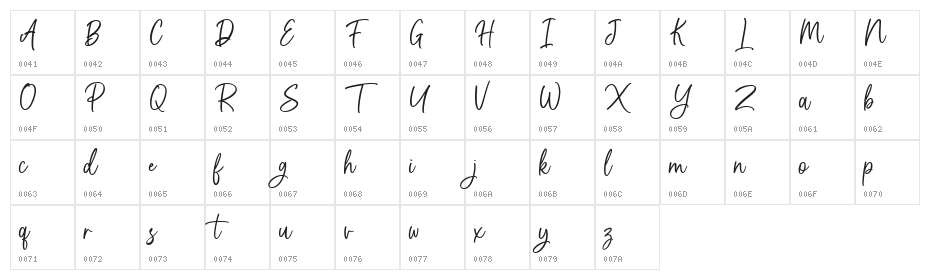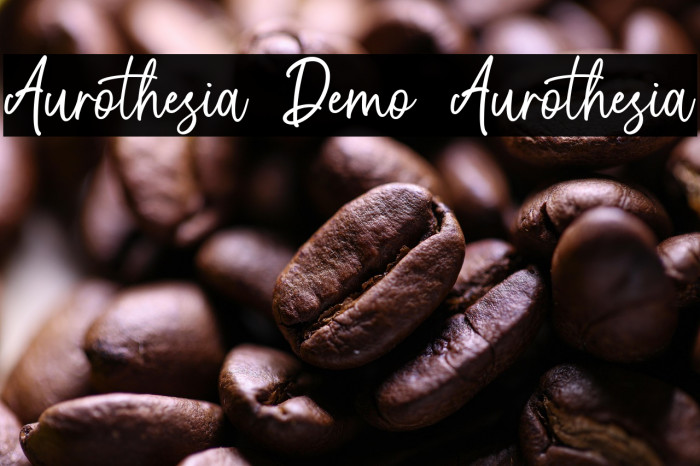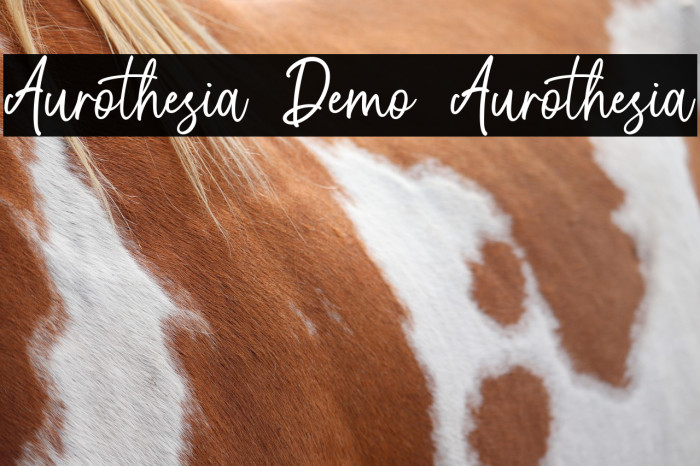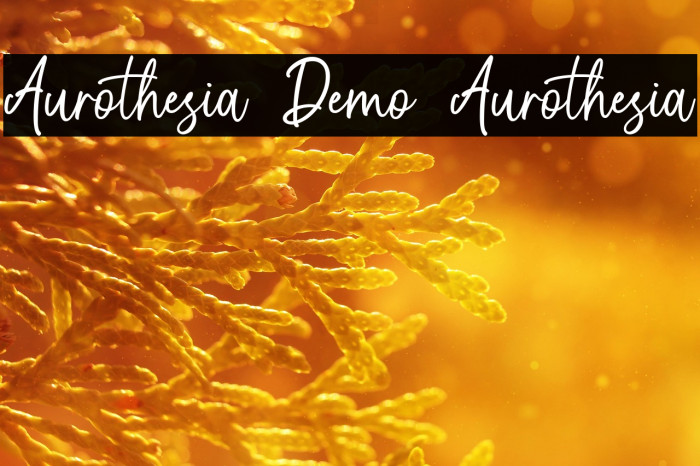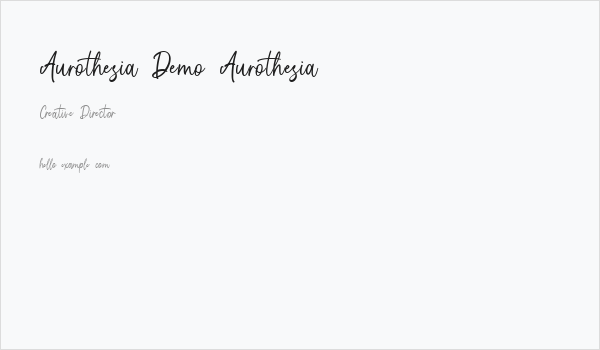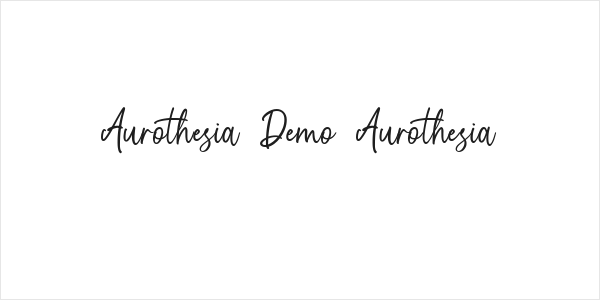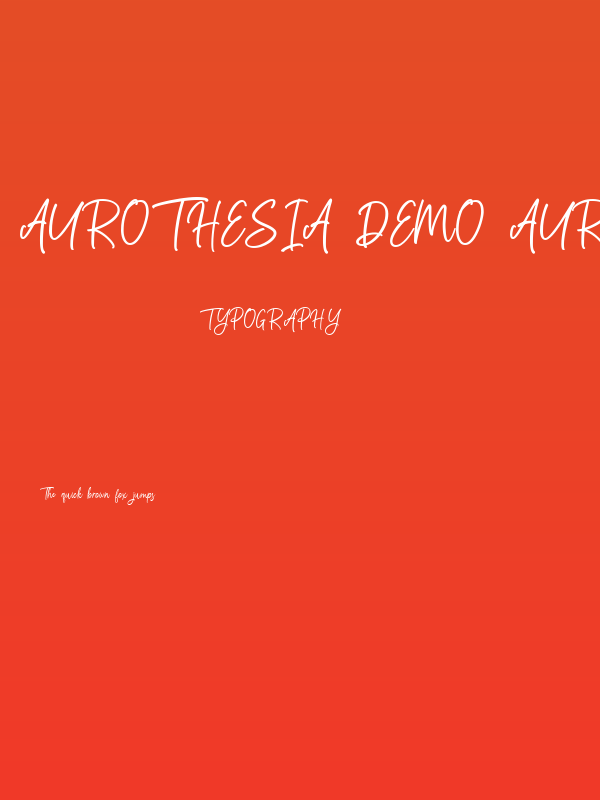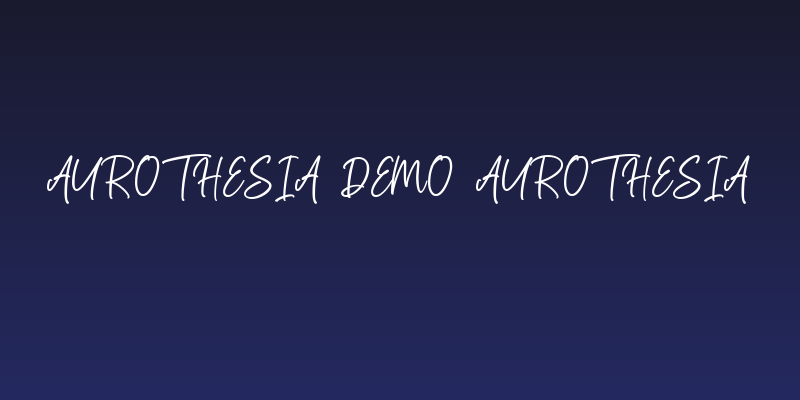
Aurothesia Demo Aurothesia Font
Aurothesia Demo Aurothesia Description
A flowing, handwritten script font with tall, elegant letterforms and smooth, connected strokes. The characters have a casual yet refined appearance, featuring consistent line thickness and playful loops, especially in ascenders and descenders.
Overall StyleDecorative, Modern, Handwritten
Use CaseLogos, Headlines, Invitations, Social media posts
Proposed ProjectsWedding invitations, personal branding, greeting cards, quotes, social media graphics.